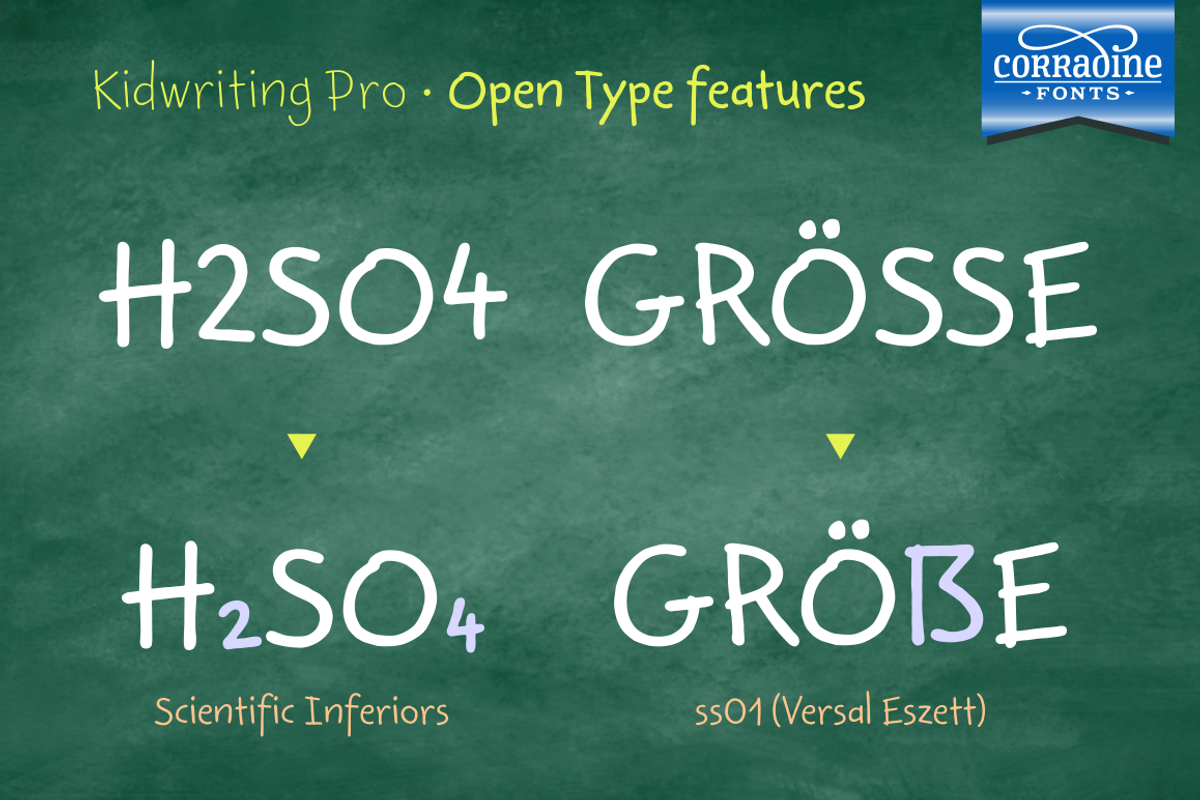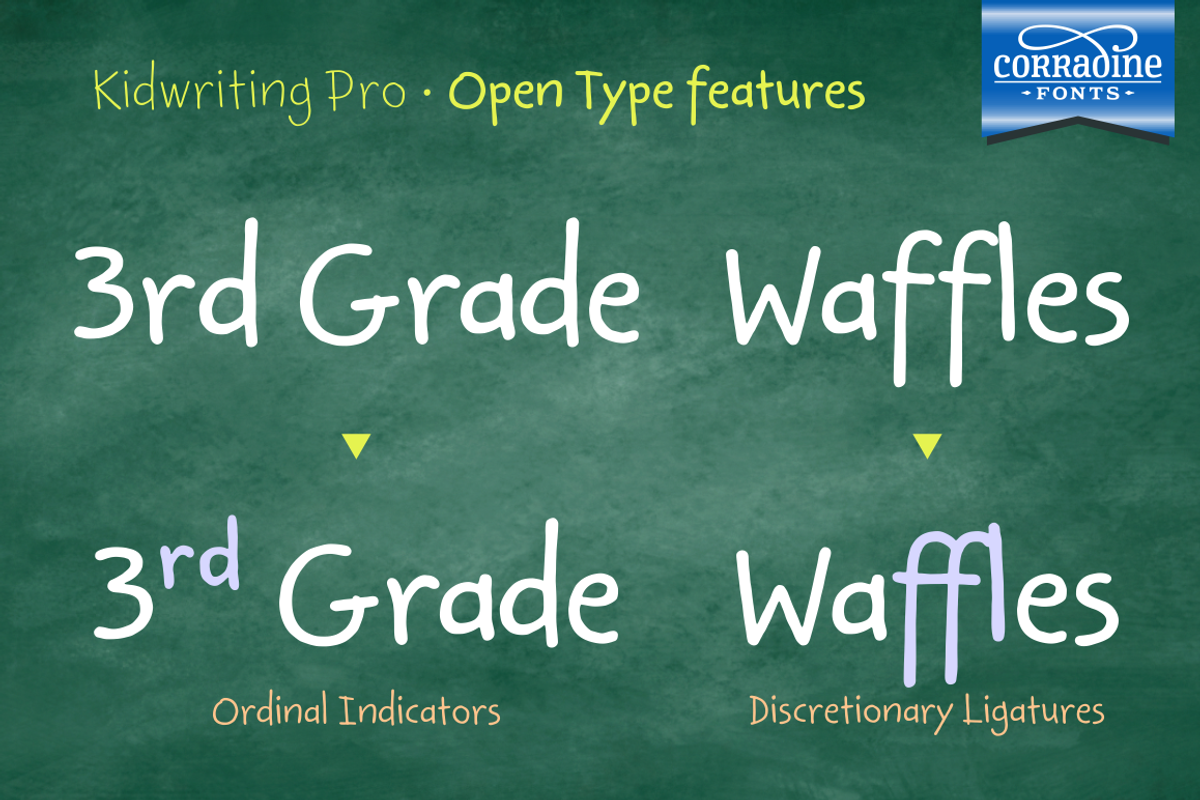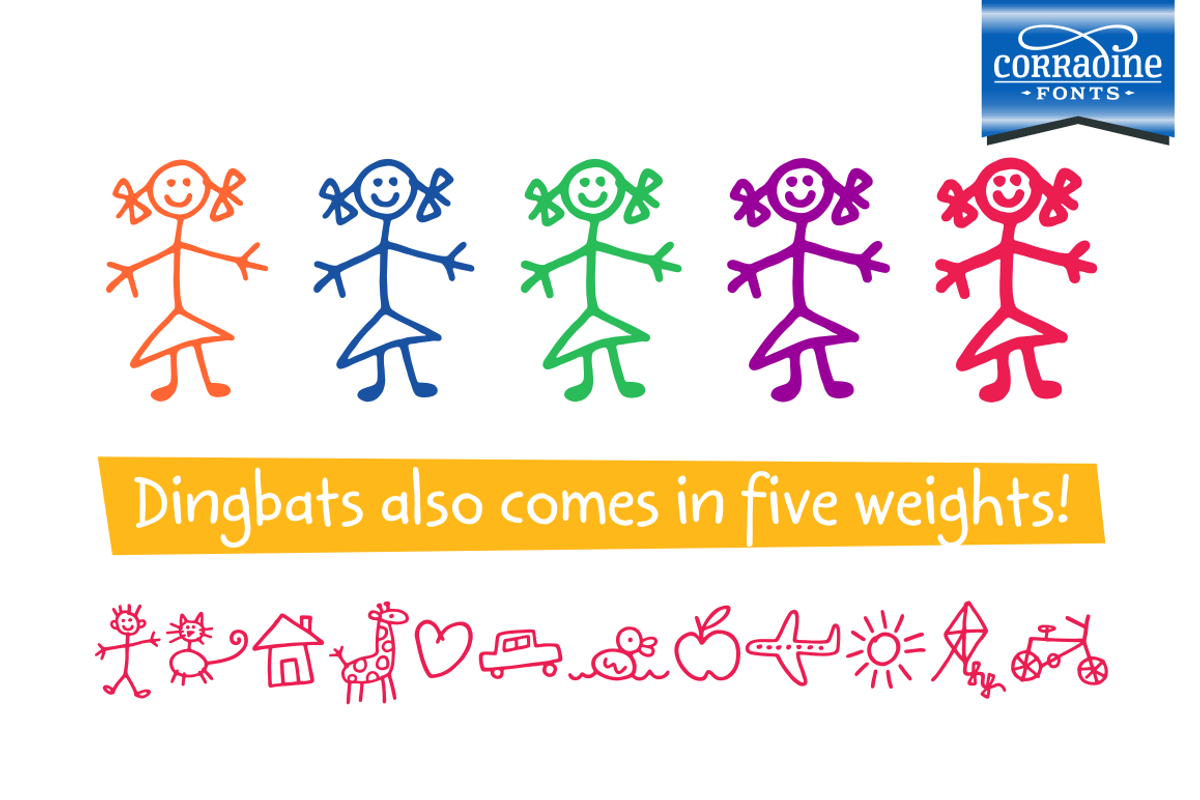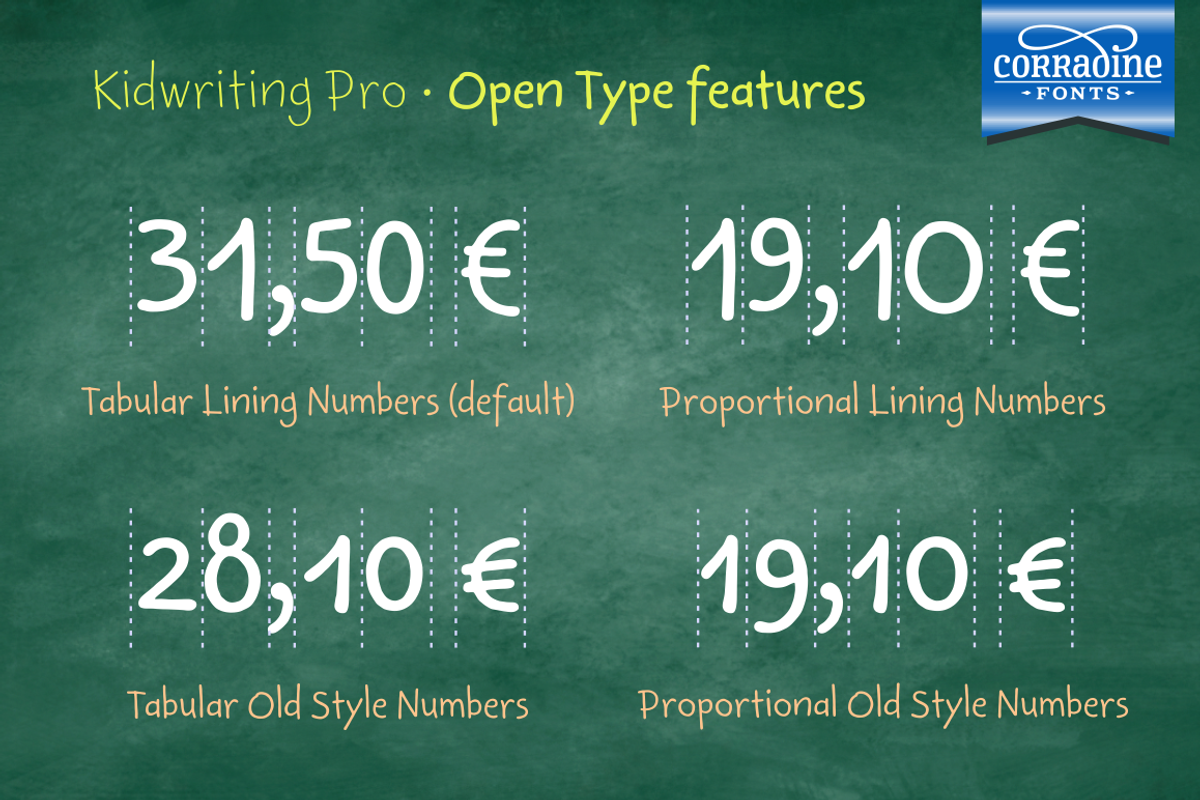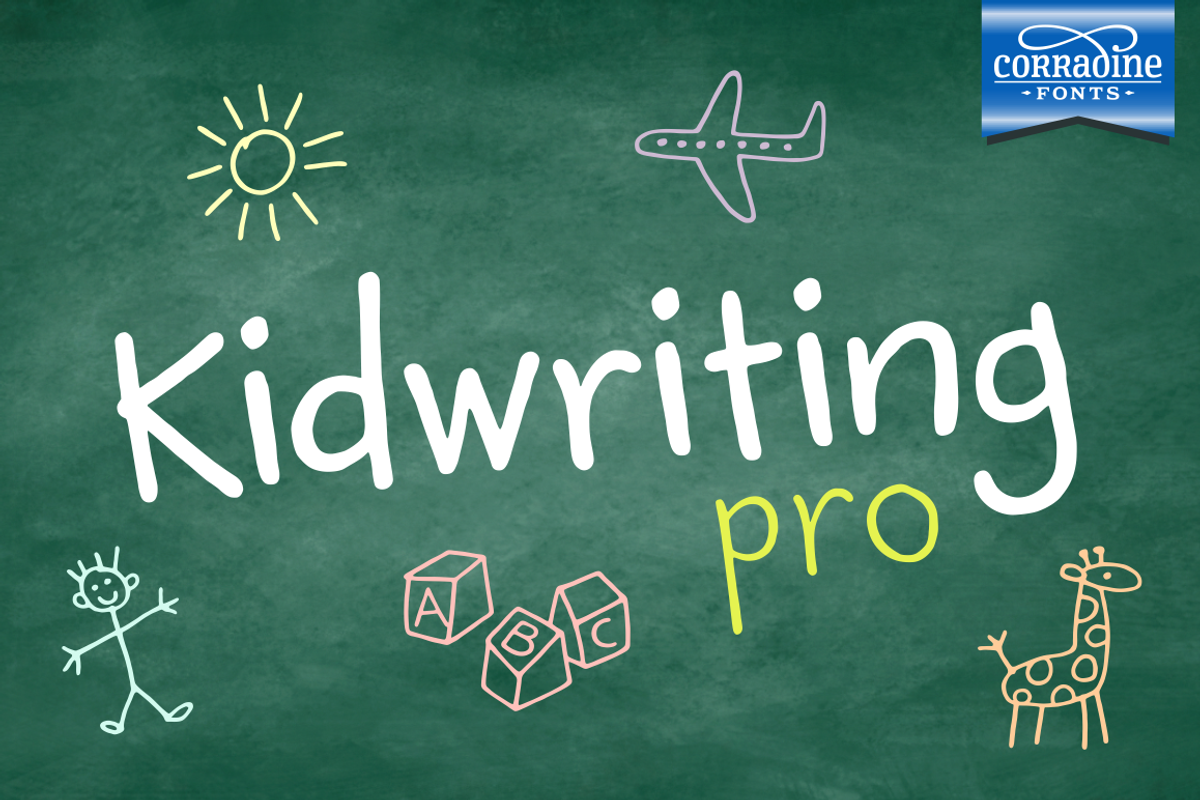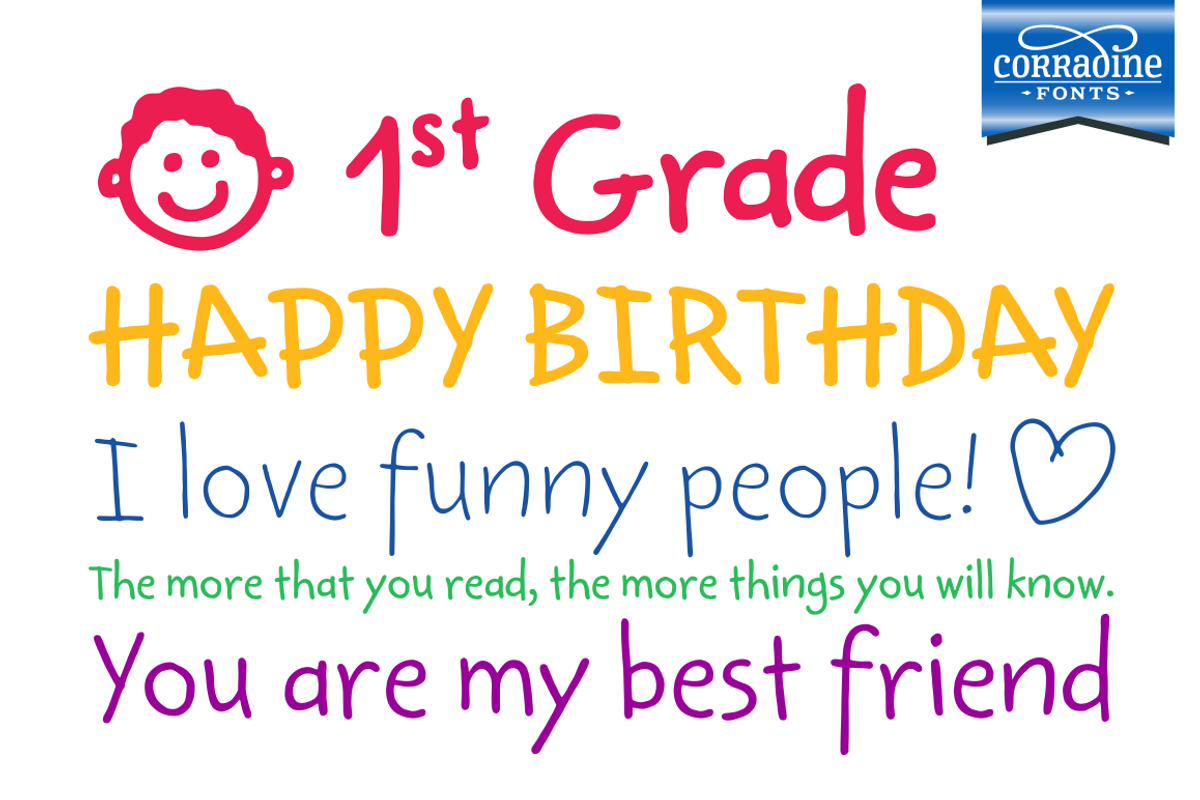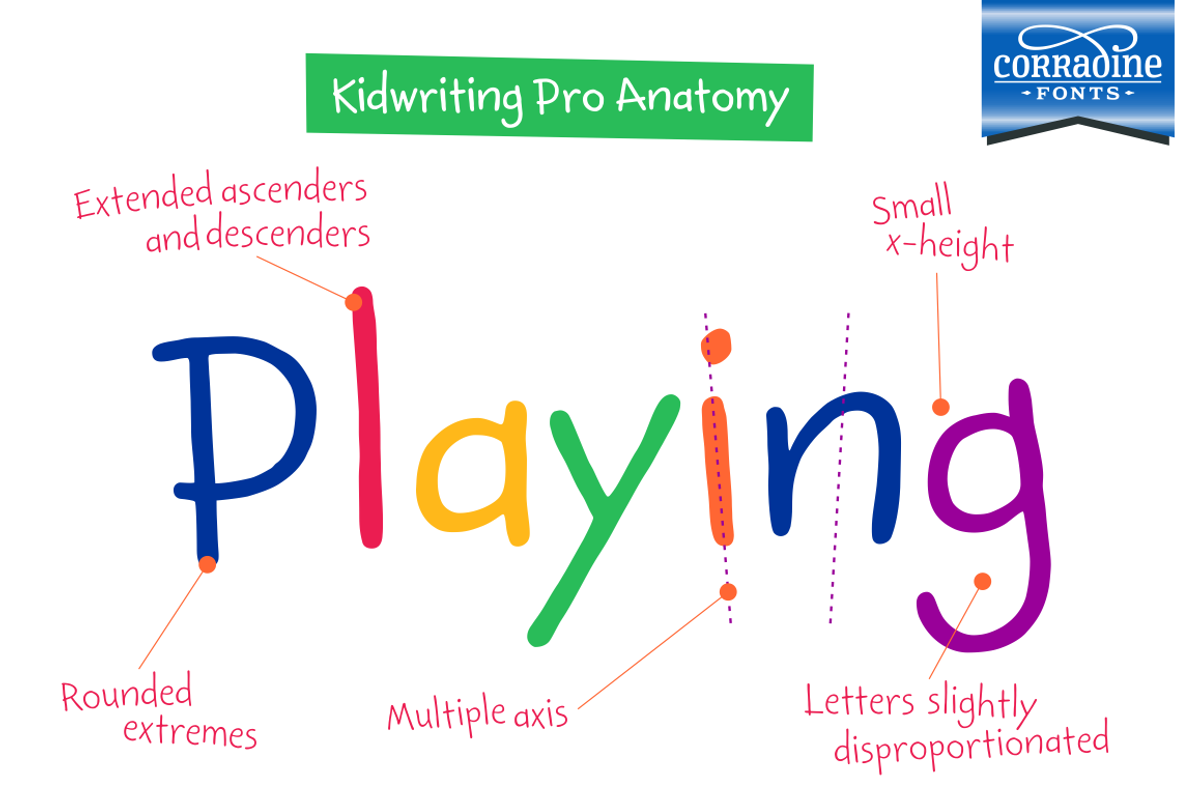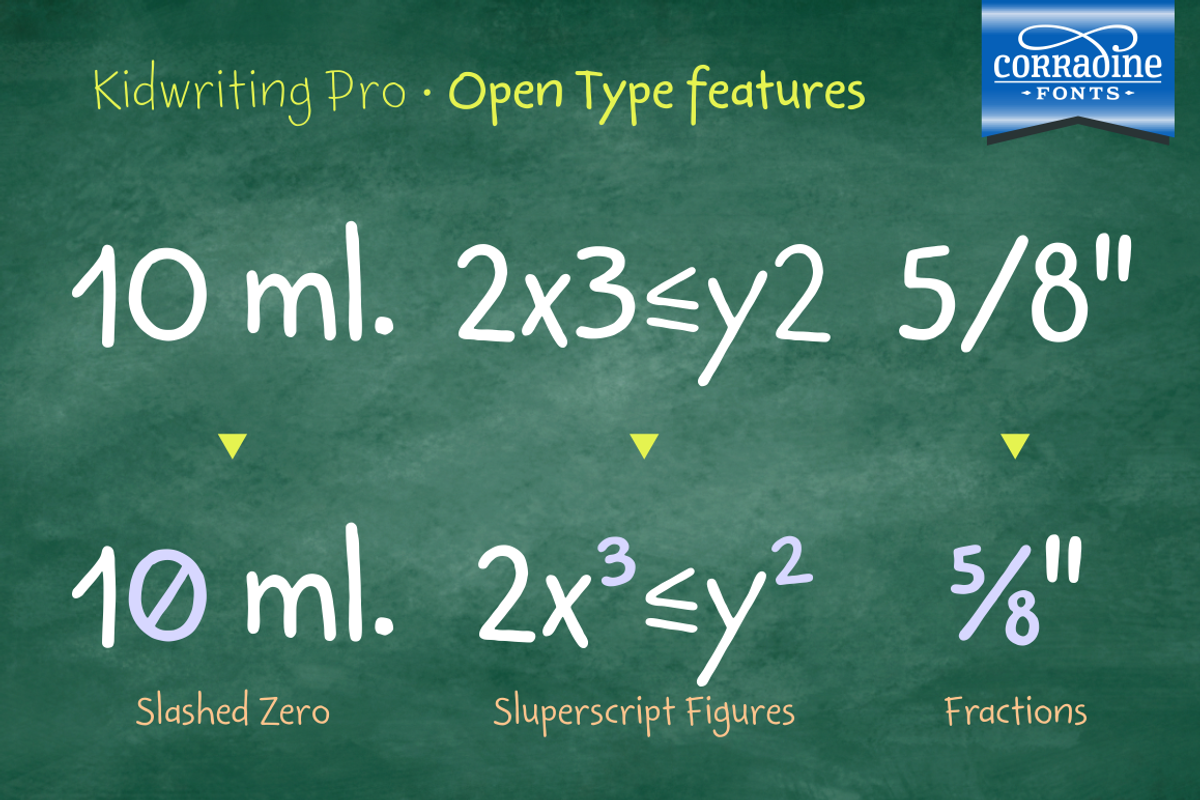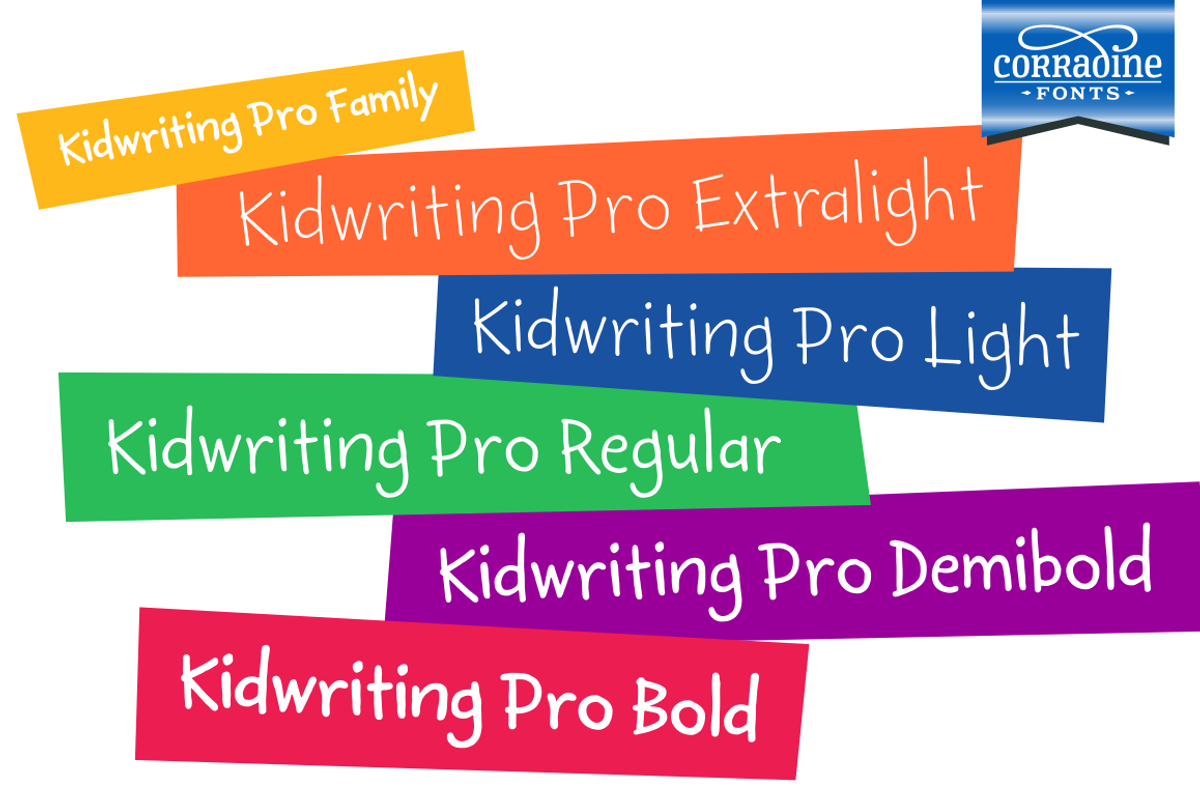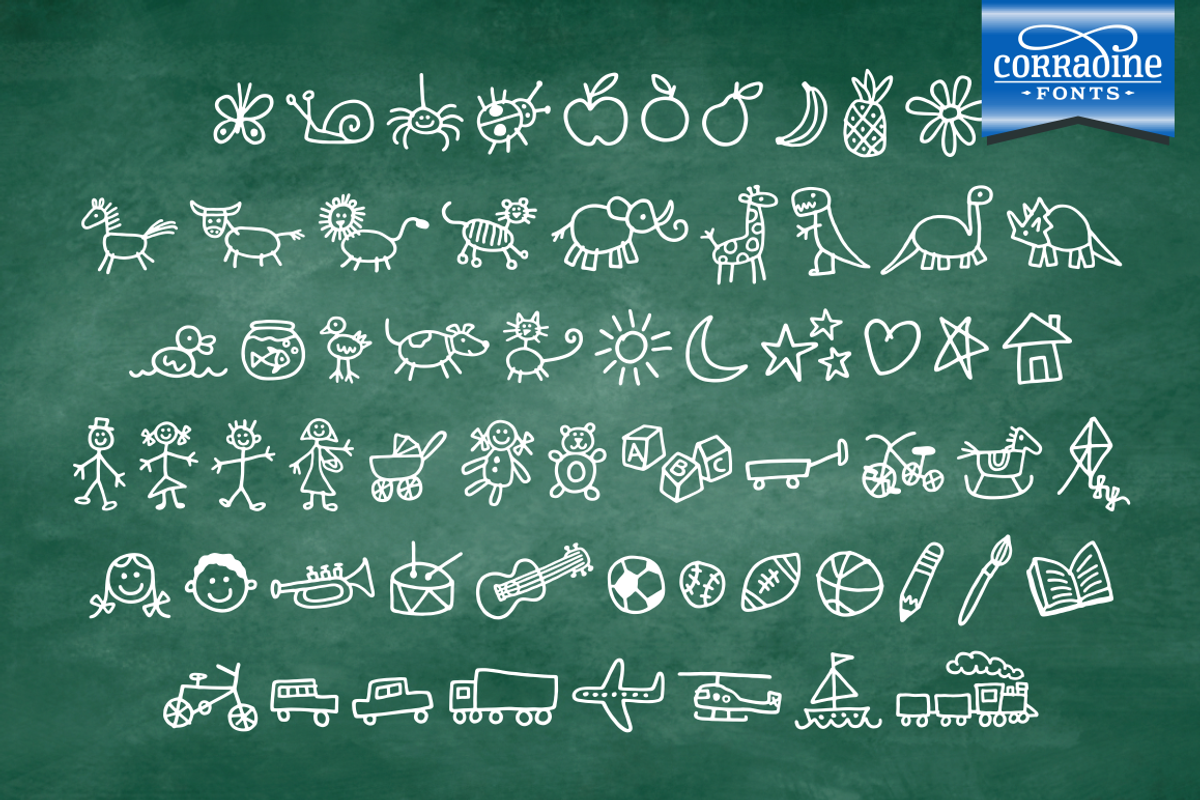
Kidwriting Pro
Kidwriting is a hand-drawn font, originally released in 2007. Now, we are proud to present a totally redrawn and improved font: Kidwriting Pro, which include not just a softer appearance but also an extended set of characters and new typographic features that makes it a professional tool.
The childlike appearance of Kidwriting Pro allows to apply it to any child related project like teaching material or games. It effectively recreate the charming and somehow bumbling qualities of a child’s handwriting, but is balanced enough for comfortable reading.
Kidwriting Pro has many Open Type features such as Old Style figures, discretionary ligatures, ordinals and fractions. Composed of more than 500 glyphs, Kidwriting Pro supports Western European, Central/Eastern European, Baltic, Turkish and Romanian Languages.
Kidwriting Pro is complemented with a set of 62 selected dingbats which evoque the children world. And the best: it comes also in the same five weights to match completely with each one of the fonts.